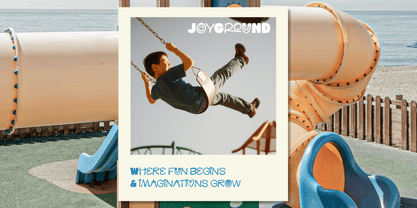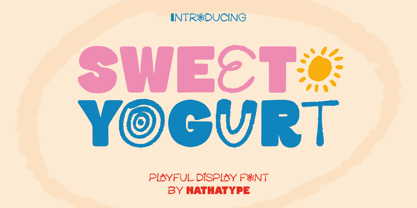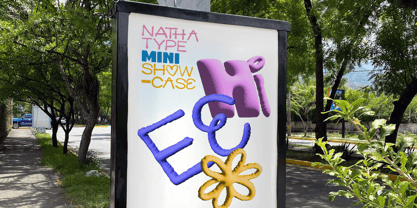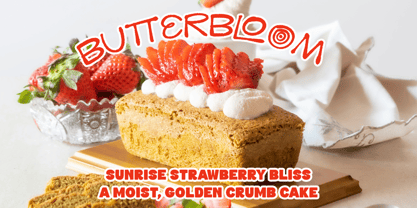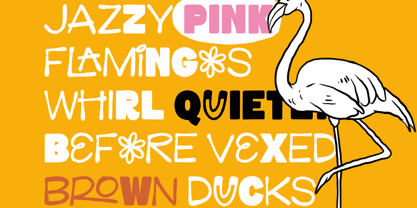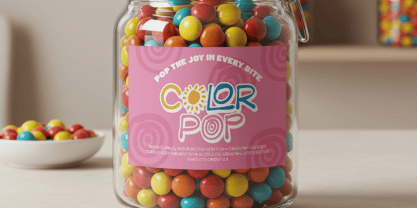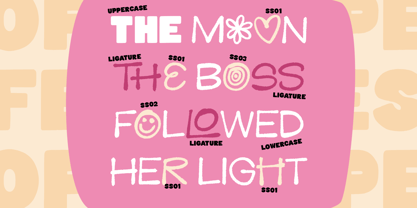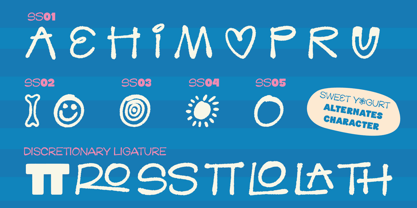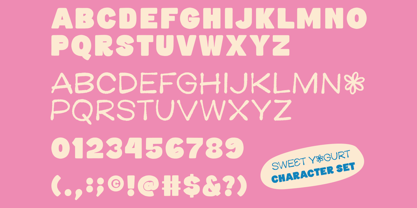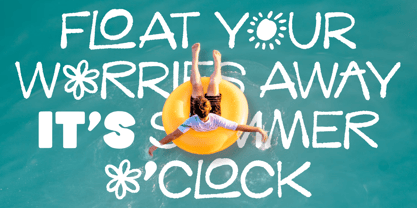
Sweet Yogurt
by Nathatype
The Sweet Yogurt Font Family was designed by Donis Miftahudin and published by Nathatype. Sweet Yogurt contains 1 styles. More about this family
Sweet Yogurt is a fun and energetic display font designed to bring joy, creativity, and bold character to your typography. Crafted entirely in uppercase letters, this font features a fairly thick weight and a playful style that makes every word feel lively and full of personality. Sweet Yogurt is perfect for designers who want their text to stand out with a cheerful, friendly, and eye-catching look. In addition, enjoy the features here. Features: Ligatures Stylistic Sets Multilingual Supports PUA Encoded Numerals and Punctuations Sweet Yogurt fits in logos, quotes, branding, posters, and many more designs. Find out more ways to use this font by taking a look at the font preview. Thanks for purchasing our fonts. Hopefully, you have a great time using our font. Feel free to contact us anytime for further information or when you have trouble with the font. Thanks a lot and happy designing.
Designers: Donis Miftahudin
Foundry: Nathatype